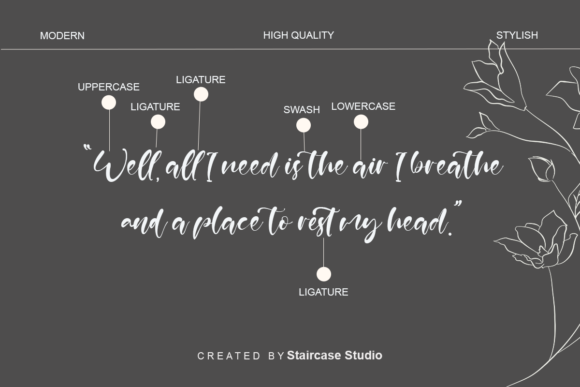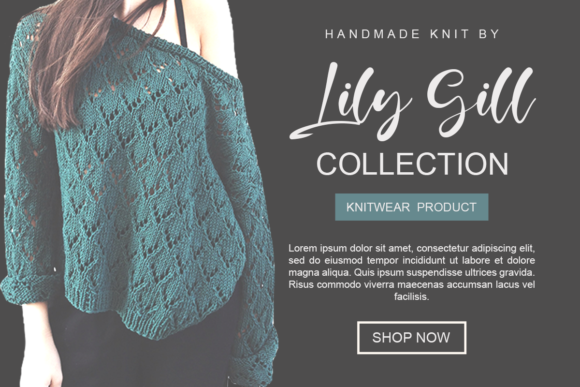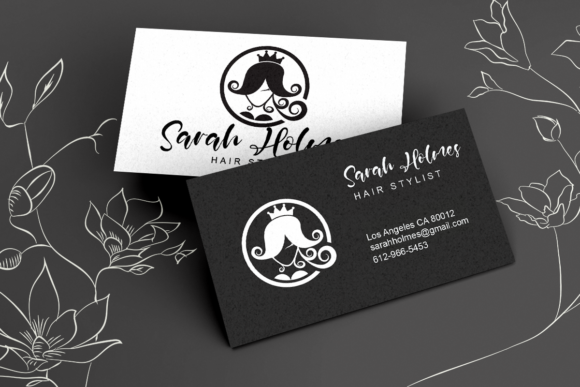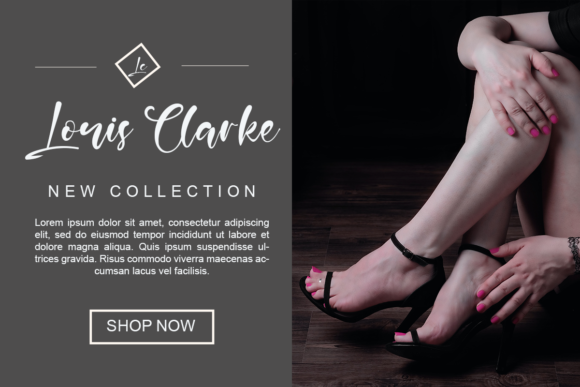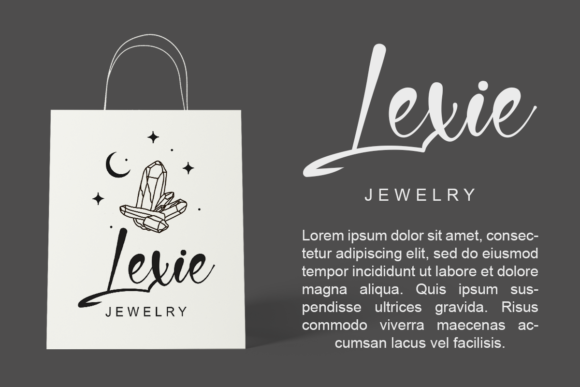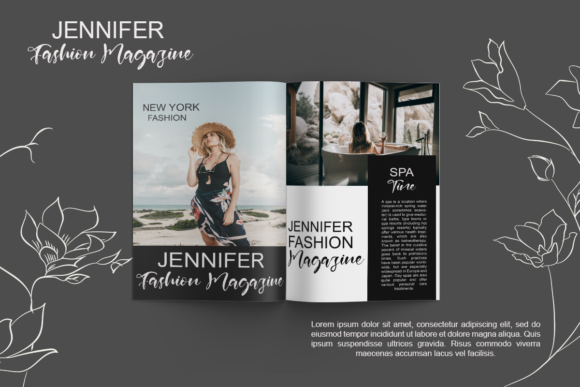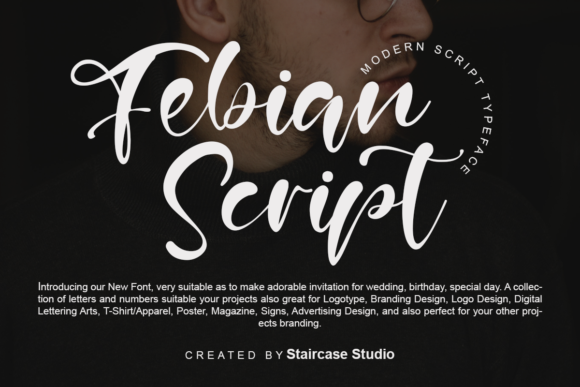
Introducing Febian Script Font: Elevate Your Creativity with Elegance
Are you a designer, crafty DIY enthusiast, or social media influencer looking for a font that can add a touch of magic to your creative projects? Look no further than Febian Script Font, a beautiful and elegant script font designed to turn your ideas into stunning works of art. In this article, we’ll dive into the world of Febian Script, exploring its features, benefits, and uses, and show you how this incredible font can elevate your creativity.
The Story Behind Febian Script Font
Febian Script Font is a carefully crafted font that combines the beauty of traditional calligraphy with the versatility of modern digital design. With its elegant strokes, flowing curves, and precise lettering, Febian Script is the perfect choice for anyone looking to add a touch of sophistication to their creative projects. Whether you’re designing a logo, creating a social media post, or working on a DIY craft, this font is sure to impress.
Key Features of Febian Script Font
• Elegant and Magical Design: Febian Script Font boasts a unique and captivating design that will add a touch of magic to any project.
• Highly Versatile: This font is perfect for a wide range of creative projects, from Instagram posts and stories to DIY crafts and professional designs.
• Easy to Read and Write: Febian Script Font is designed to be clear and legible, making it easy to read and write in a variety of contexts.
Uses for Febian Script Font
Febian Script Font is an incredibly versatile font that can be used in a wide range of creative projects. Here are just a few ideas to get you started:
• Instagram and Social Media: Use Febian Script Font to create stunning social media posts and stories that will engage and inspire your followers.
• DIY Crafts and Projects: Add a touch of elegance to your DIY crafts and projects, from handmade cards and invitations to scrapbooking and journaling.
• Logo Design and Branding: Use Febian Script Font to create a unique and memorable logo for your business or brand.
• Wedding and Event Planning: This font is perfect for creating beautiful wedding invitations, programs, and other event materials.
Tips for Using Febian Script Font
To get the most out of Febian Script Font, here are a few tips to keep in mind:
• Experiment with Different Sizes and Colors: Febian Script Font looks great in a variety of sizes and colors, so don’t be afraid to experiment and find the perfect combination for your project.
• Pair with Other Fonts: This font pairs beautifully with other fonts, so try combining it with a bold or sans-serif font to add contrast and interest.
• Use in Combination with Images and Graphics: Febian Script Font looks stunning when used in combination with images and graphics, so try incorporating it into your design to add an extra layer of depth and interest.
Font Name Febian Script Font